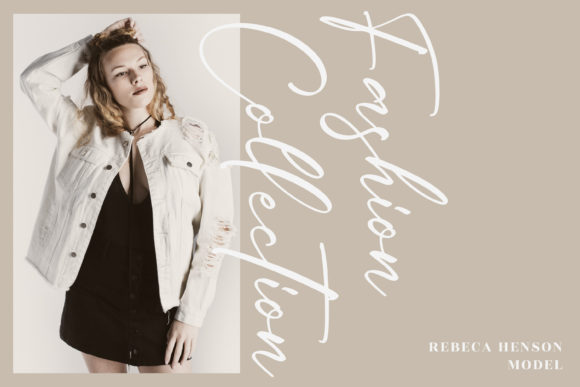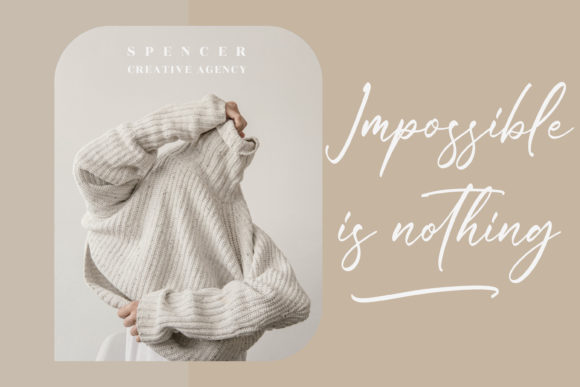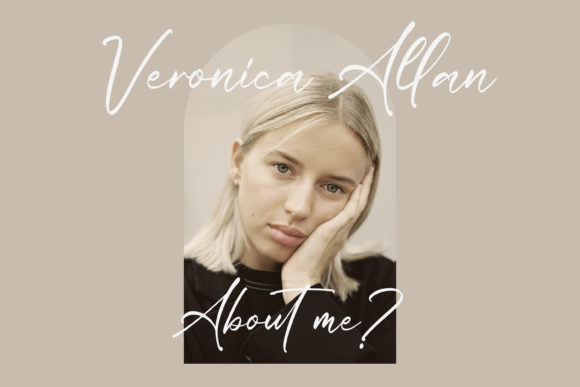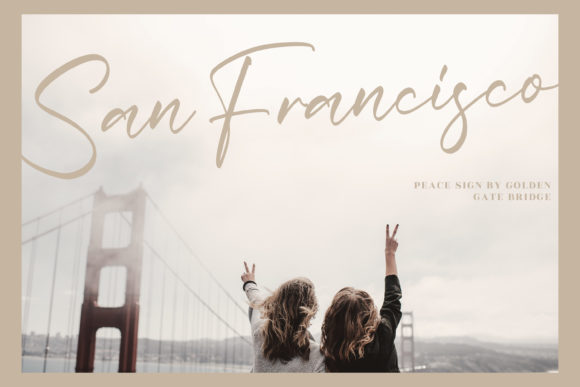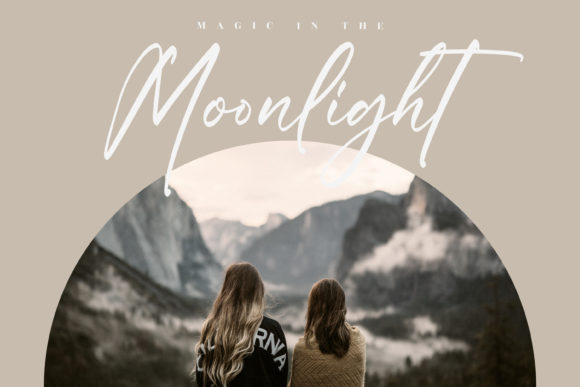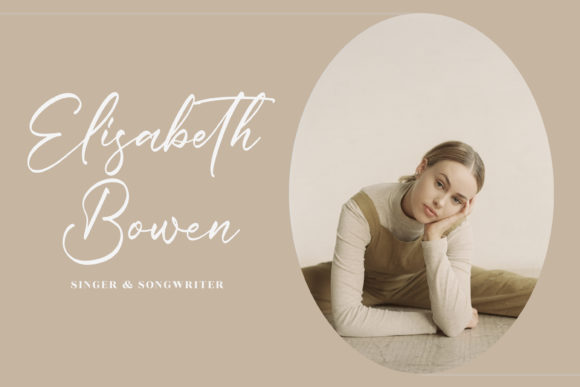
Introducing Delmate Fasteria Font: Elevate Your Designs with Elegance
In the world of typography, a font can make or break a design. For designers and crafters looking to add a touch of sophistication and style to their projects, Delmate Fasteria Font is an exceptional choice. This stunning script font is not only visually appealing but also incredibly versatile, making it perfect for a wide range of design applications.
What Makes Delmate Fasteria Font Stand Out?
Delmate Fasteria Font is a stylish and incredibly elegant script font that can instantly elevate your designs. Its unique and flowing lines give it a distinctive look that can add a customized touch to any project. Whether you’re working on a logo, branding materials, invitations, or any other design that requires a touch of elegance, Delmate Fasteria Font is sure to impress.
Key Features of Delmate Fasteria Font
- PUA Encoded: One of the standout features of Delmate Fasteria Font is that it is PUA (Private Use Area) encoded. This means that you can easily access all the glyphs and swashes, giving you greater flexibility and creative control over your designs.
- Stylish and Elegant: The font’s stylish and elegant appearance makes it perfect for designs that require a sophisticated look. From wedding invitations to luxury branding, Delmate Fasteria Font can add a touch of class to any project.
- Versatile: Delmate Fasteria Font is incredibly versatile and can be used on a variety of designs, including logos, business cards, social media graphics, and more. Its unique style can help your designs stand out from the crowd.
Delmate Fasteria Font offers numerous benefits for designers and crafters, including:
- Ease of Use: With its PUA encoding, you can easily access all the glyphs and swashes, making it simple to customize your designs.
- Time-Saving: The font’s versatility and wide range of applications can save you time and effort in finding the perfect font for your projects.
- High-Quality Designs: Delmate Fasteria Font can help you create high-quality designs that are sure to impress your clients or audience.
How to Use Delmate Fasteria Font
- Experiment with Different Sizes: Delmate Fasteria Font looks great in a variety of sizes, so don’t be afraid to experiment and find the perfect size for your design.
- Play with Swashes: The font’s swashes can add a touch of elegance to your designs. Experiment with different swashes to find the one that works best for your project.
- Pair it with Other Fonts: Delmate Fasteria Font can be paired with other fonts to create a unique and visually appealing design.
Delmate Fasteria Font is a stylish and elegant script font that can elevate your designs to the next level. Its PUA encoding, versatility, and wide range of applications make it an excellent choice for designers and crafters. With its ease of use, time-saving features, and high-quality designs, Delmate Fasteria Font is a must-have for anyone looking to add a touch of sophistication and style to their projects.